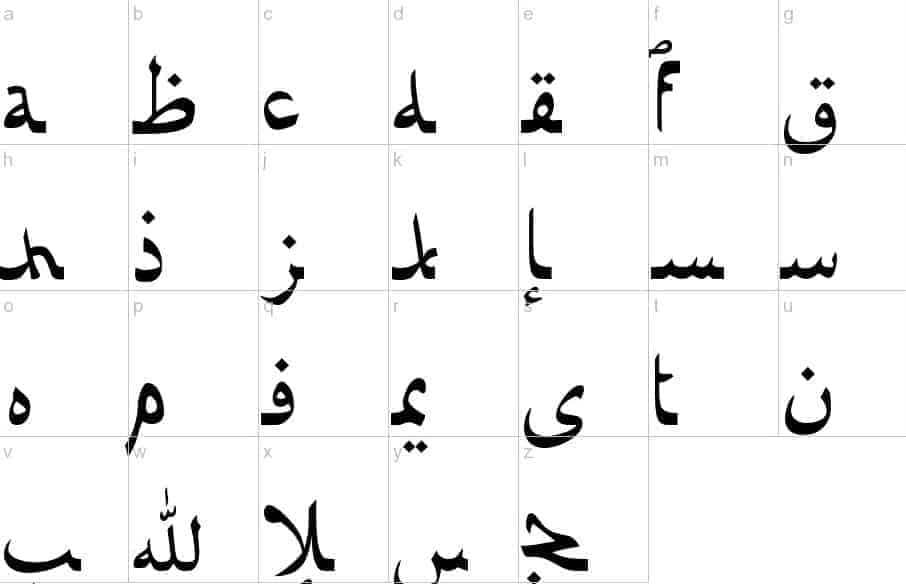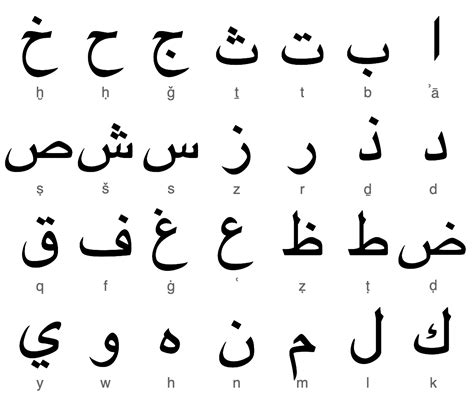
Arabic Alphabet Font
Arabic Alphabet Font - Web noto sans arabic has multiple weights and widths, contains 1,642 glyphs, 12 opentype features, and supports 1,161 characters. Web noto kufi arabic has multiple weights, contains 733 glyphs, 10 opentype features, and supports 301 characters from 4. Web aref ruqaa is an arabic typeface that aspires to capture the essence of the classical ruqaa calligraphic style.